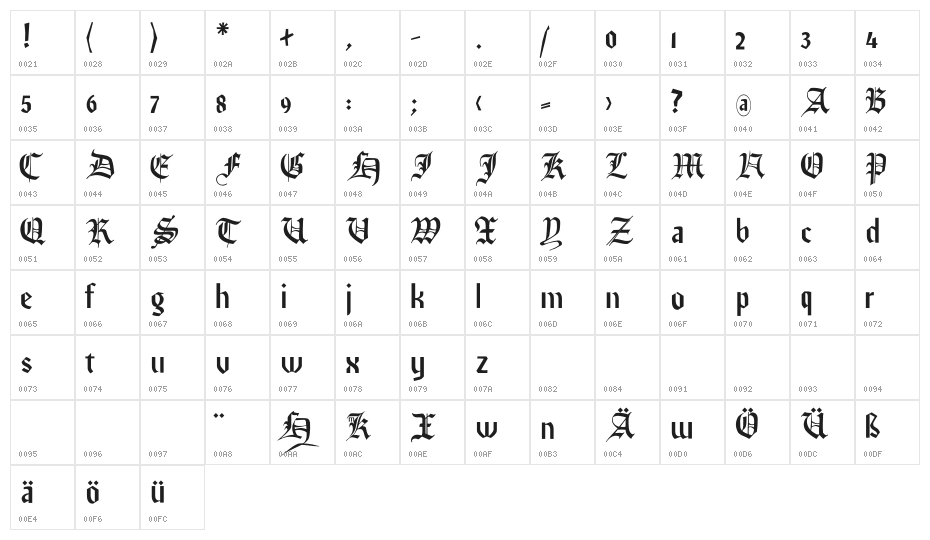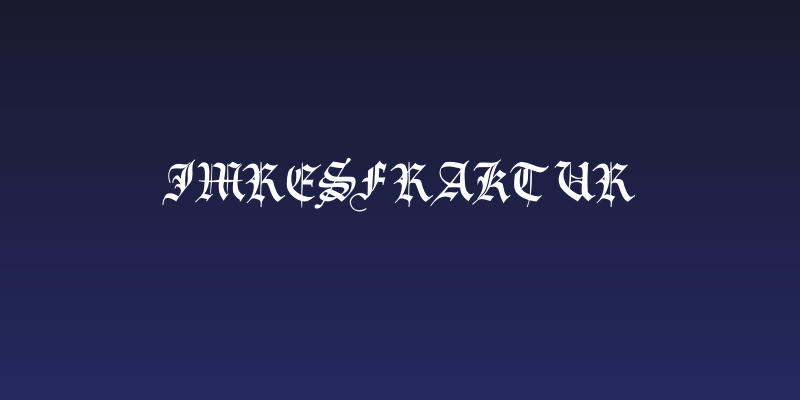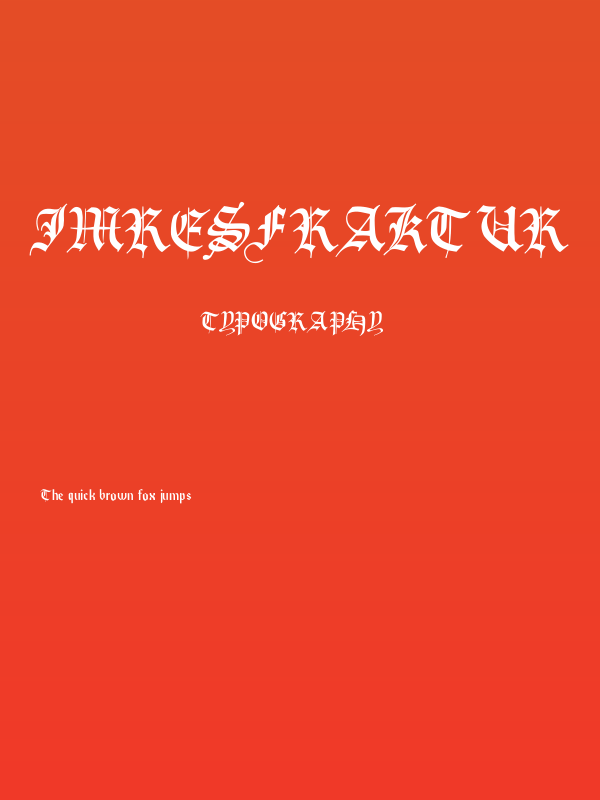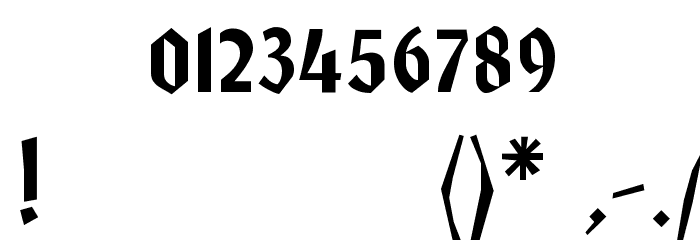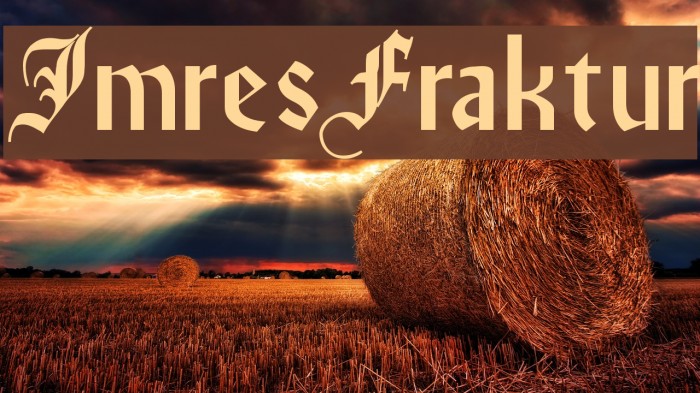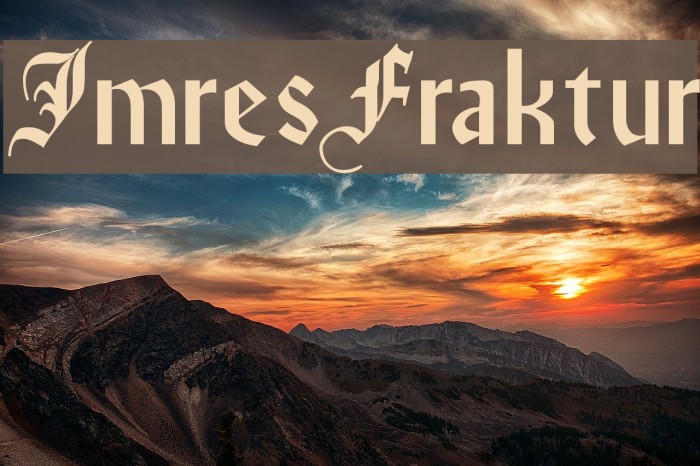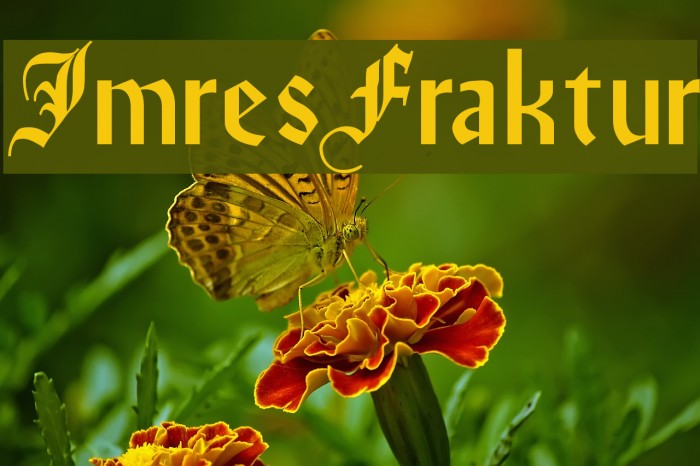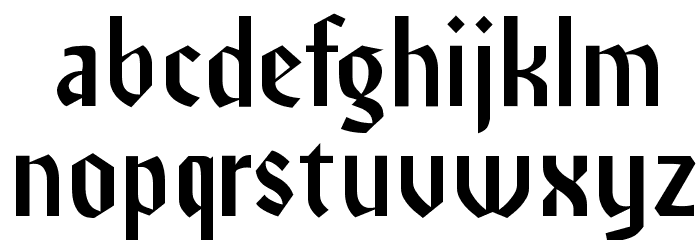
ImresFraktur Font
ImresFraktur Description
This font features a classic blackletter style, characterized by its intricate and ornate letterforms. The uppercase letters exhibit sharp, angular lines with decorative flourishes, giving them a medieval and gothic appearance. The lowercase letters maintain a similar aesthetic but with a slightly more streamlined design, making them more readable while still retaining the traditional blackletter charm. The numerals are bold and consistent with the overall style, ensuring they stand out while complementing the text. Special characters are designed with the same attention to detail, featuring unique and elaborate shapes that enhance the font's historical feel.
| Proposed Projects | Ideal for historical documents, medieval-themed designs, book covers, and branding that requires a traditional or gothic touch. |